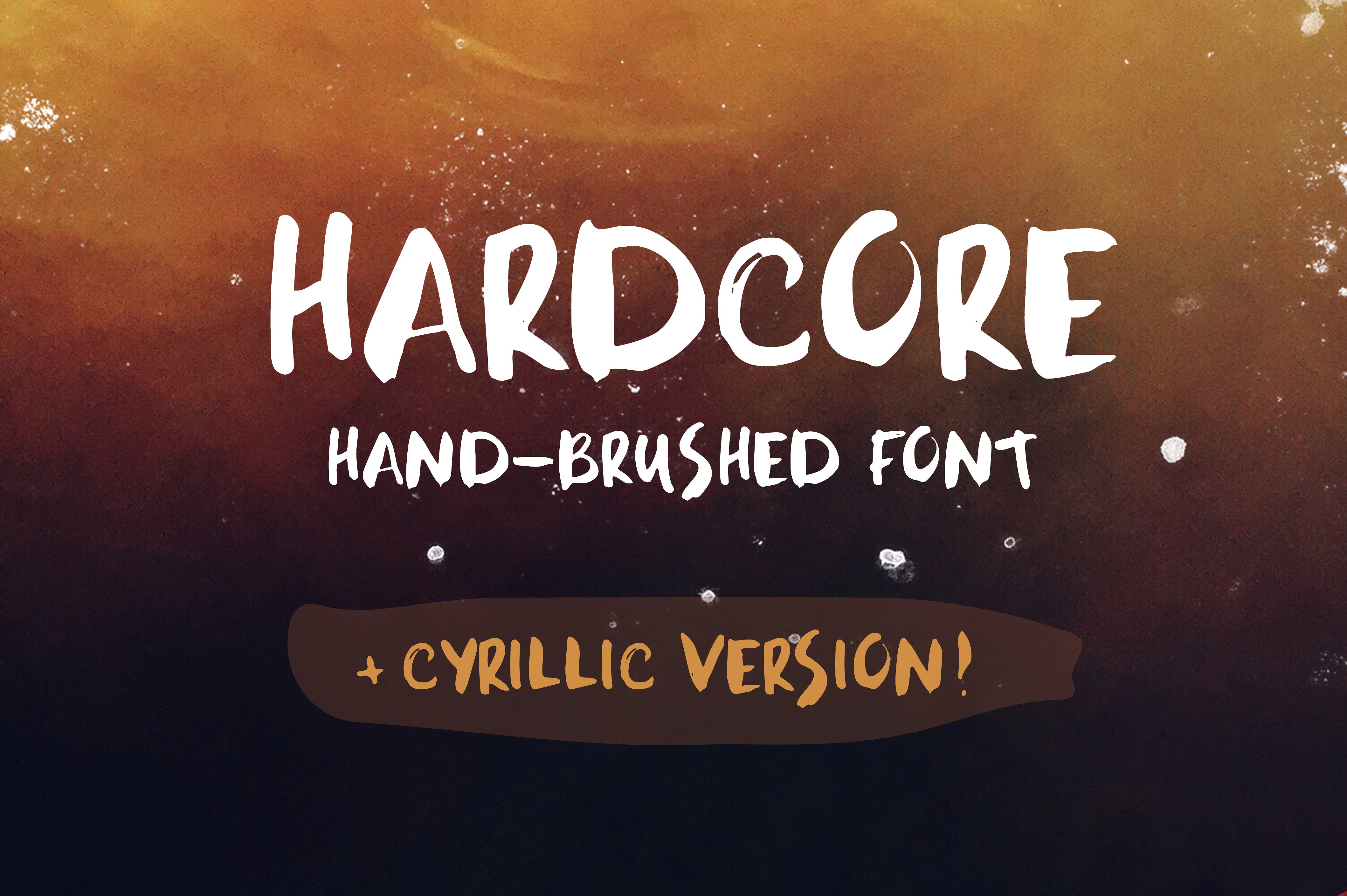
HARDCORE Brushed Font
Introducing a hand-brushed font, which include Cyrillic version! HARDCORE – a casual, arty hand script consisting of upper and lowercase letters, punctuation and numerals.
| Classification: | Brush Fonts, Handwritten Fonts, Script Fonts |